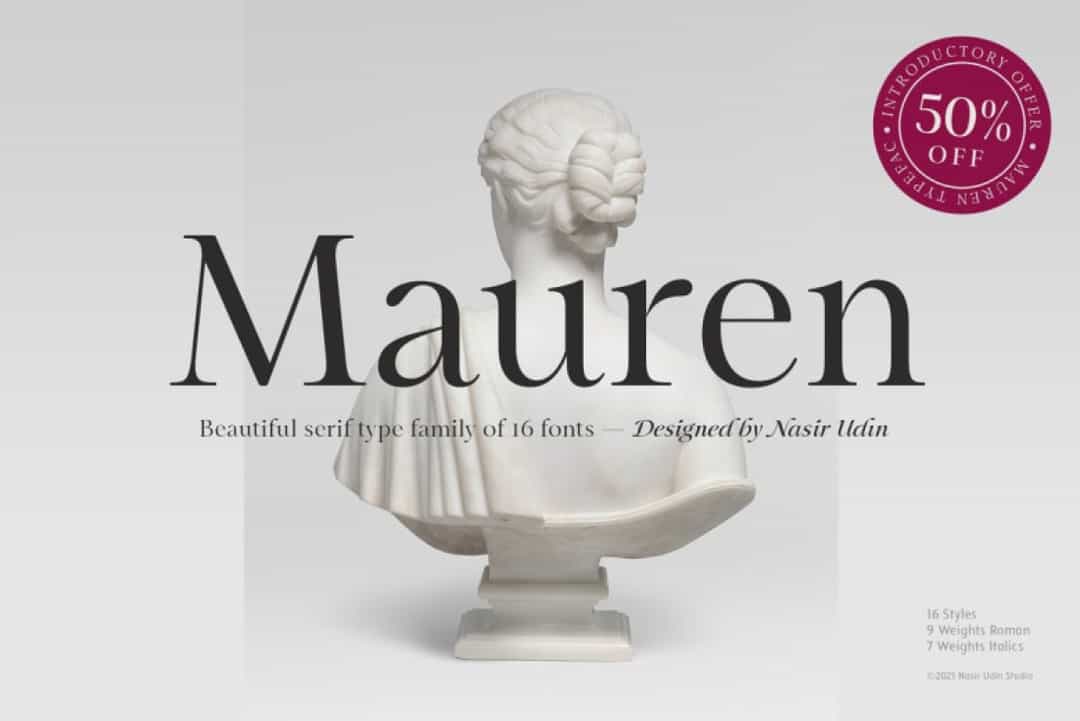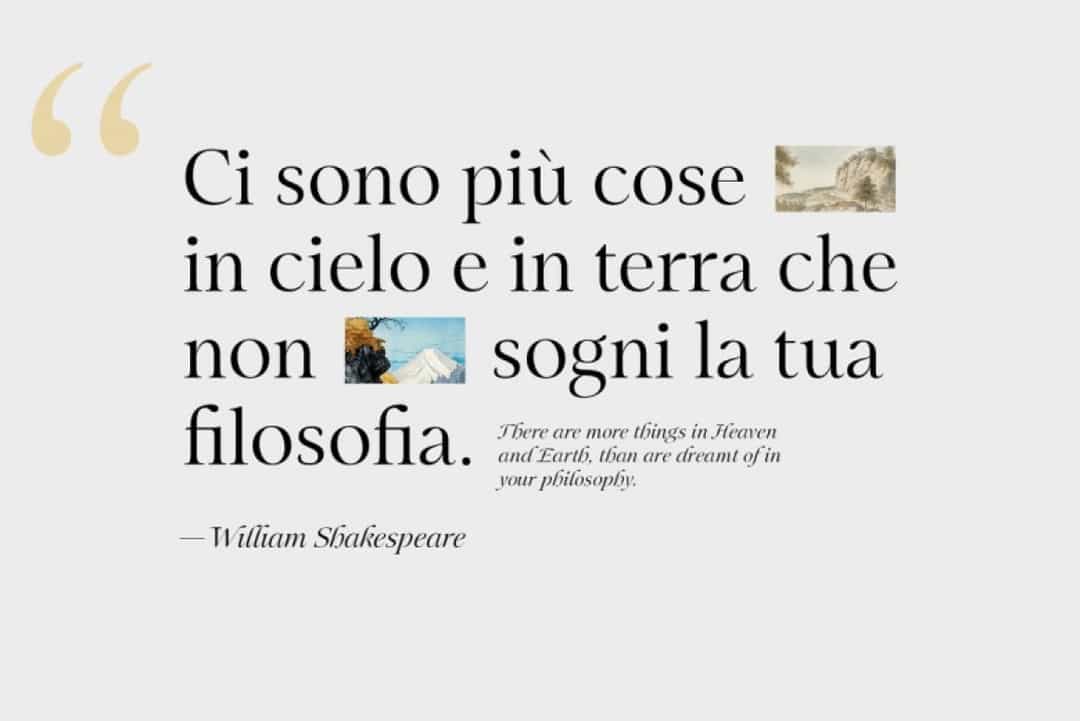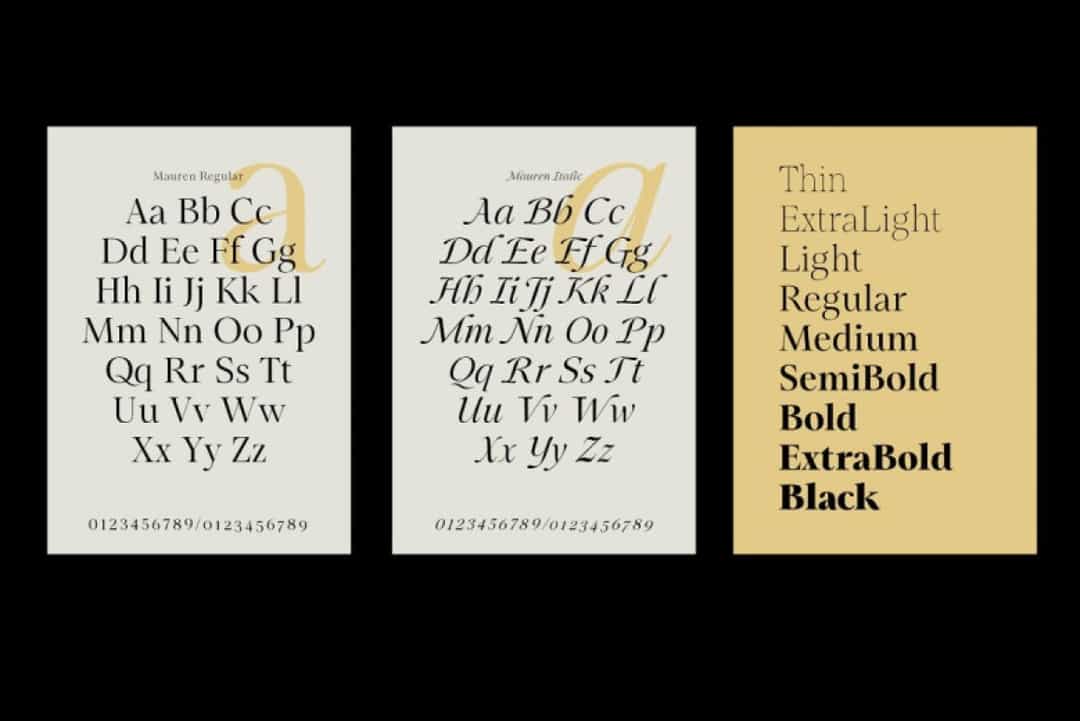
Mauren Font is an elegant serif typeface inspired by calligraphic styles, yet designed for modern demands. Ranging from black to thin with italics, this font provides many options to use within editorial or graphic designs.